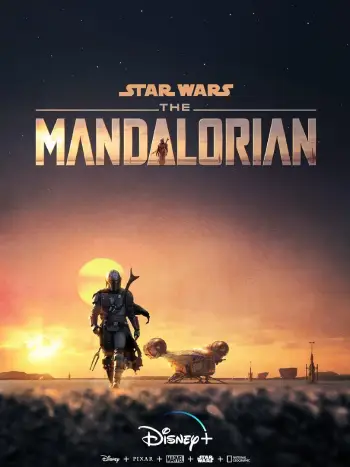
The Mandalorian font comes from an American space western television series called “The Mandalorian.” It was first released on November 12, 2019, and streamed on Disney +. In October 2020, it premiered with eight episodes from the first season.
The font used in the show is called “Mandalore,” created by Mr. Daniel Zadorozny and released by Iconian Fonts on December 23, 2019. He created the font for the title of the show. It is sleek and stylish and gives off some major bounty hunter vibes which serves the show’s purpose.
It has everything displayed on a keyboard: English letters, numbers, punctuation marks, etc. Uppercase and lowercase letters are identical. The kerning is enabled as well.
The Mandalorian logo outlines the hero standing inside the letter “A.” This font stays true to the title and lets users type their A’s while having a silhouette of the tenacious bounty hunter in the background.
However, this techno sci-fi font family comes with a bold and thick texture. It has 28 unique weight variations, and each weight has Truetype features. Each weight features a modern layout, especially the techno texture.
The Mandalorian font is shown in a movie-correct version in the Visual Dictionary for Episode II and on the Star Wars DVD from 2004.
Mandalore is a new sci-fi and techno typeface with a distinct, futuristic, and elegant style that is ideal for any project. This design approach opens the door to a wide range of fields, including architecture, advertising, and graphic design. This typeface is easy to use and has a wide range of glyphs that can be used to create visually stunning images for your projects.
This font fits any need. Which makes it perfect for logo design, web development, or any other creative projects. With its sleek lines and contemporary appearance, Mandalore is sure to stand out from the crowd.
Name | Mandalorian font |
Designer | Mr. Daniel Zadorozny |
Style | Techno, Disney |
Ans: The Mandalorian font comes from an American space western television series called “The Mandalorian.” It was first released on November 12, 2019, and streamed on Disney +.
Ans: The font used in the show is called “Mandalore,” created by Mr. Daniel Zadorozny and released by Iconian Fonts on December 23, 2019.